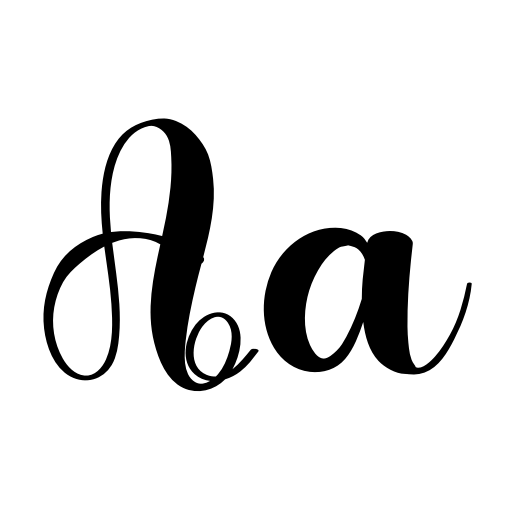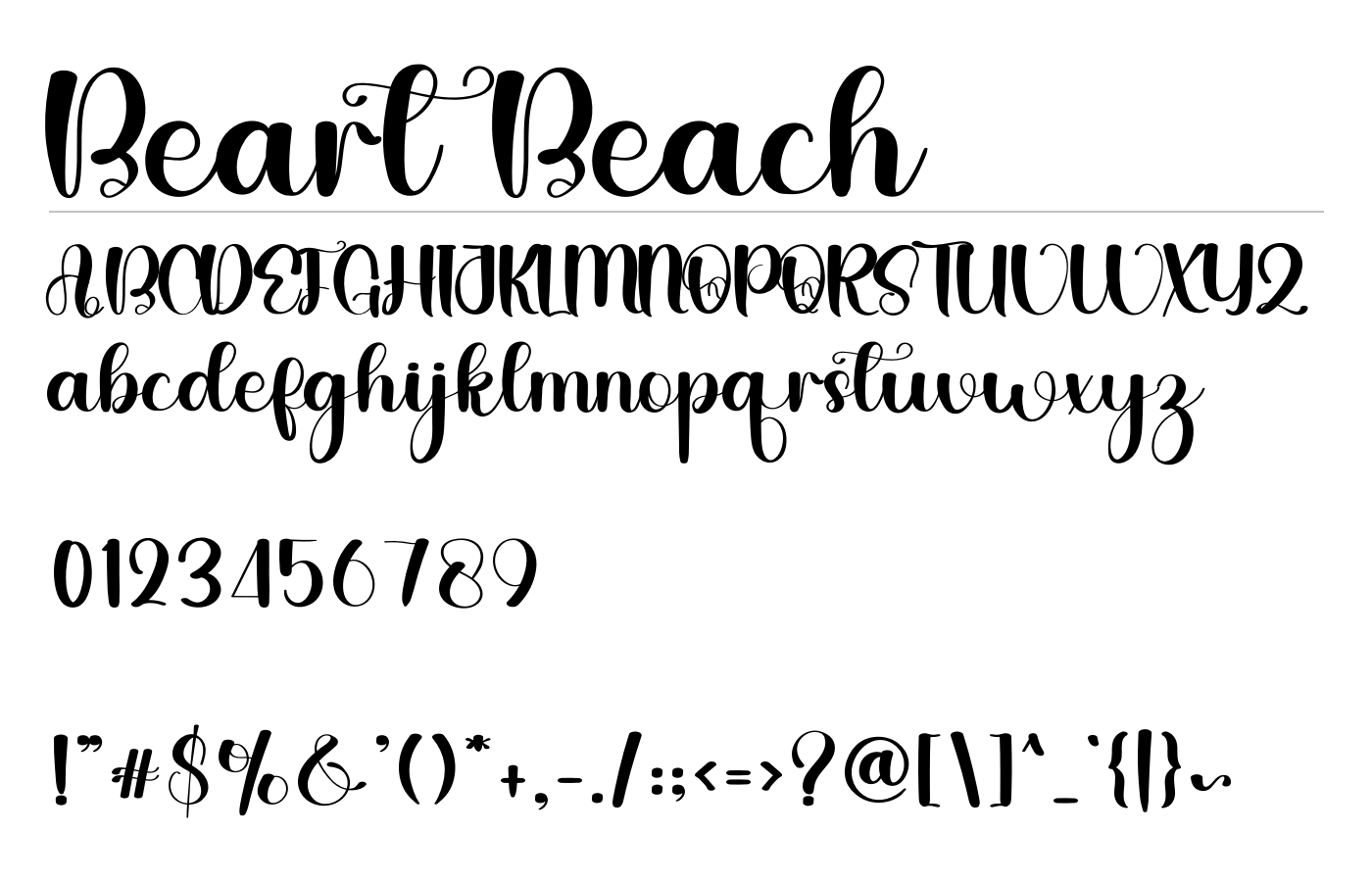
Beart Beach is a playful and stylish script font with smooth, flowing lines and charming swashes that add a friendly, handcrafted feel. Its moderate weight and balanced contrast make it lively and readable, perfect for creative branding, invitations, and casual editorial projects where a warm, approachable mood is desired. This font shines in headlines and logos, bringing a fresh, artistic vibe to designs aiming for a personal yet polished look.
Beart Beach Font
About Beart Beach Font